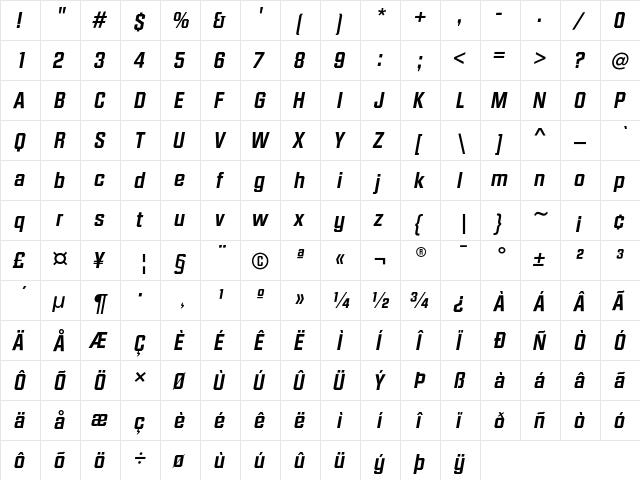
DiamanteEF DemiBoldItalic
Design Context for DiamanteEF Typeface
DiamanteEF offers clean, dependable letterforms without strong stylistic allegiance, making it a practical choice for designers who need flexibility. The slanted form adds forward momentum and visual energy. The heavy weight commands attention and anchors typographic hierarchies.
Pro Tip: Try DiamanteEF for annotation and caption copy alongside an upright companion — the contrast in angle creates a dynamic but ordered typographic system.